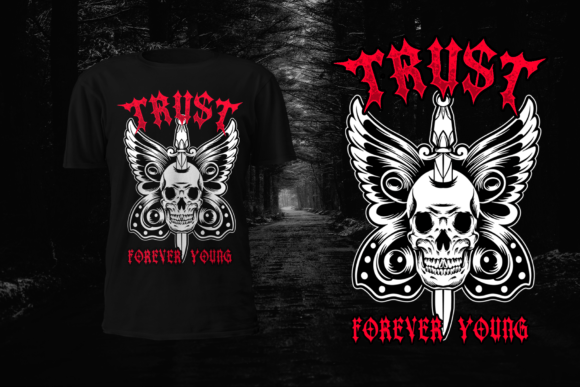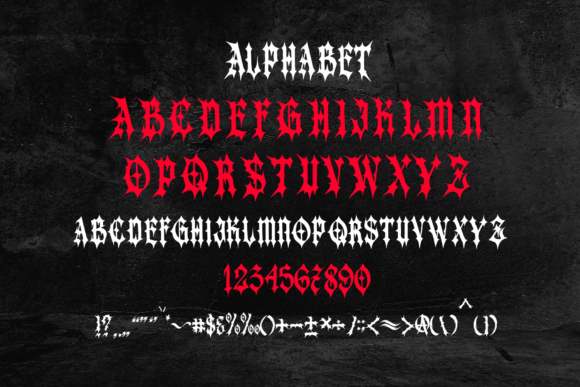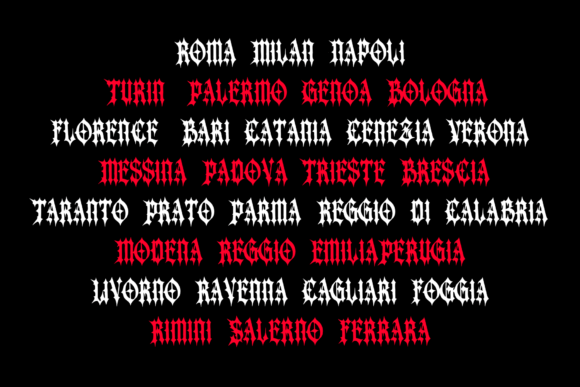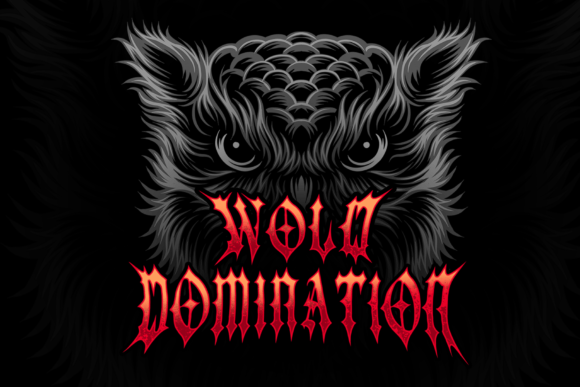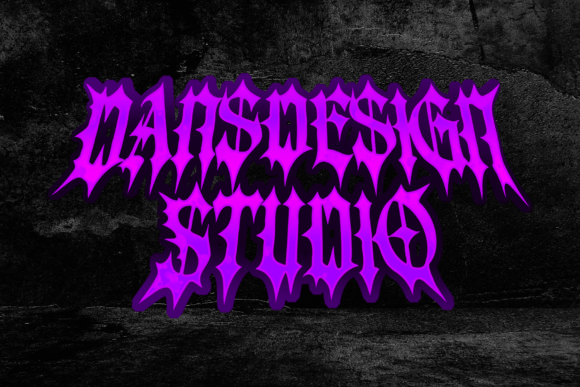
Introduction to Semurak Font
Semurak is a distinct, highly detailed, horror blackletter font.
It would be a great choice for exquisite black metal designs, tattoo business branding, logos, vintage designs, and more .